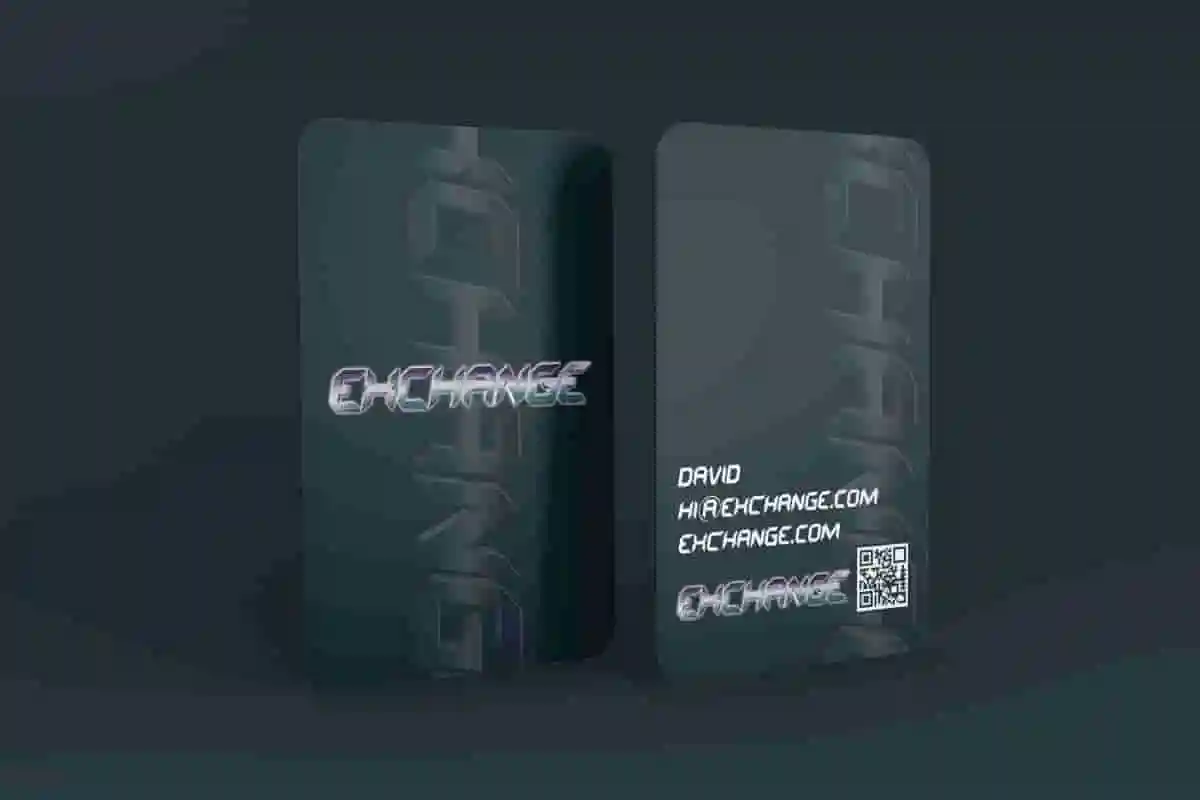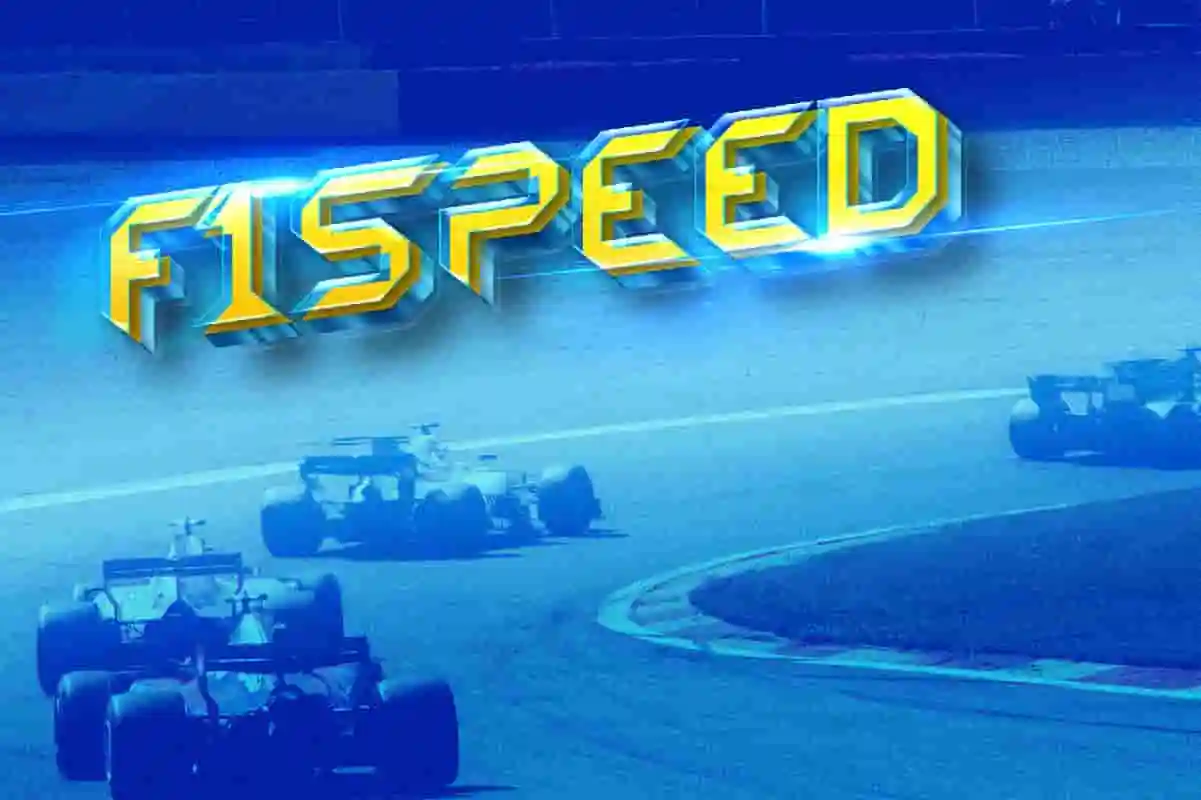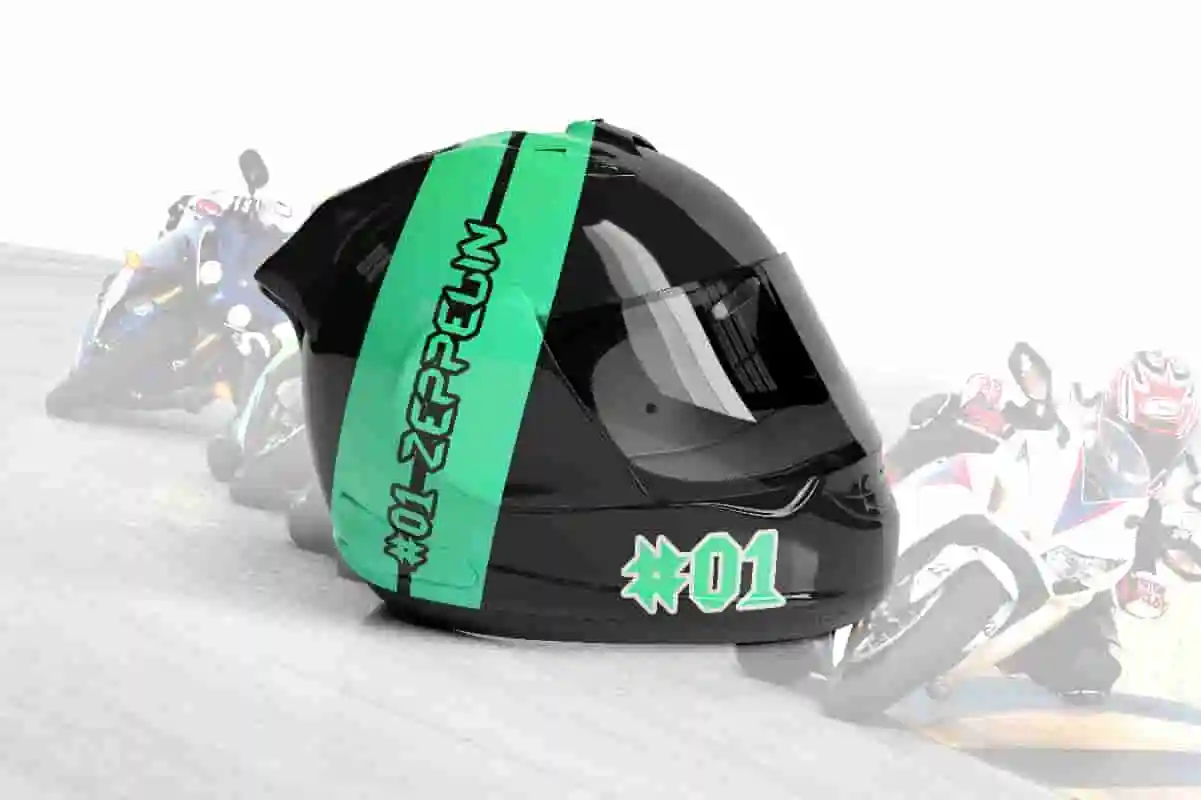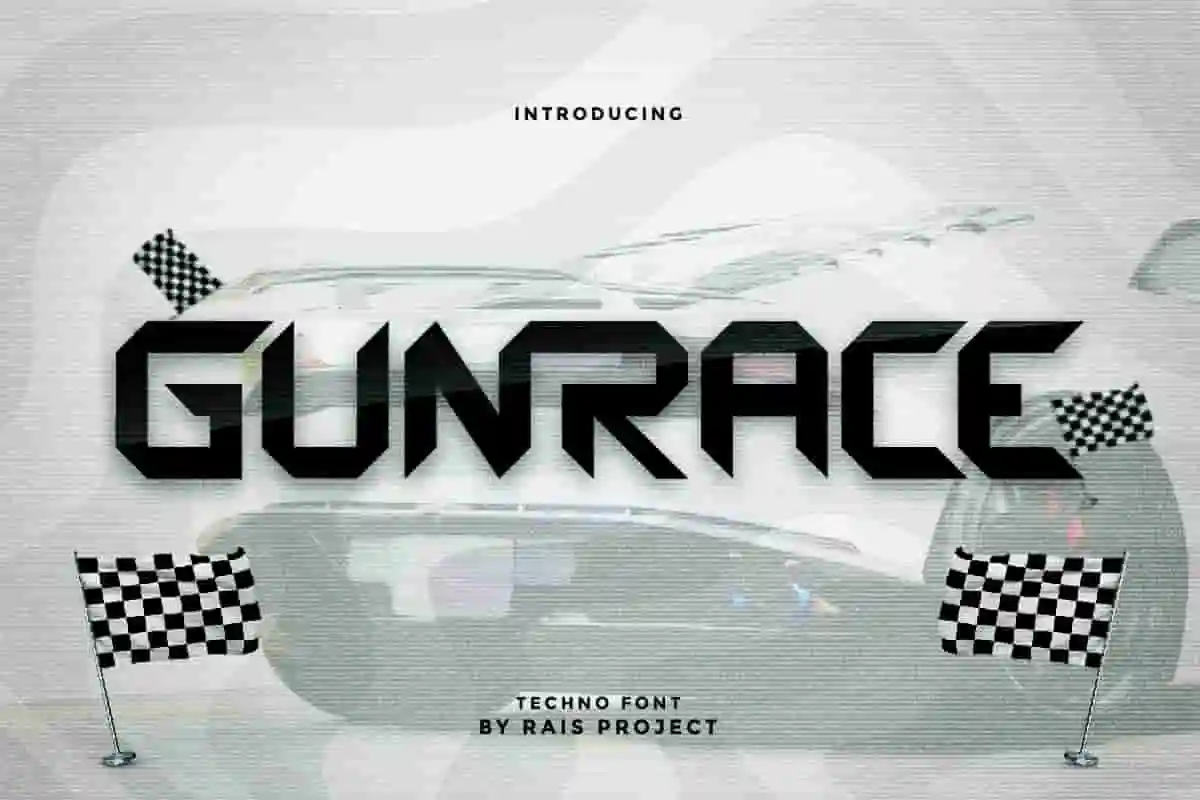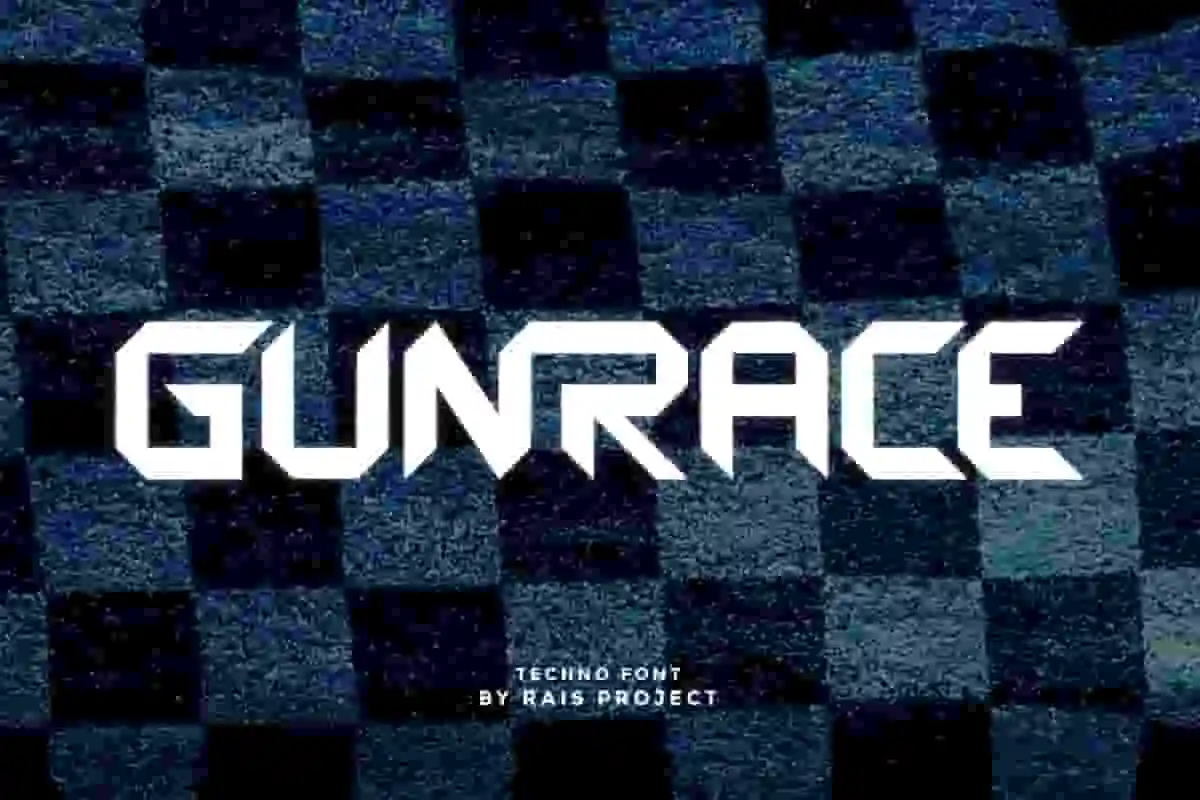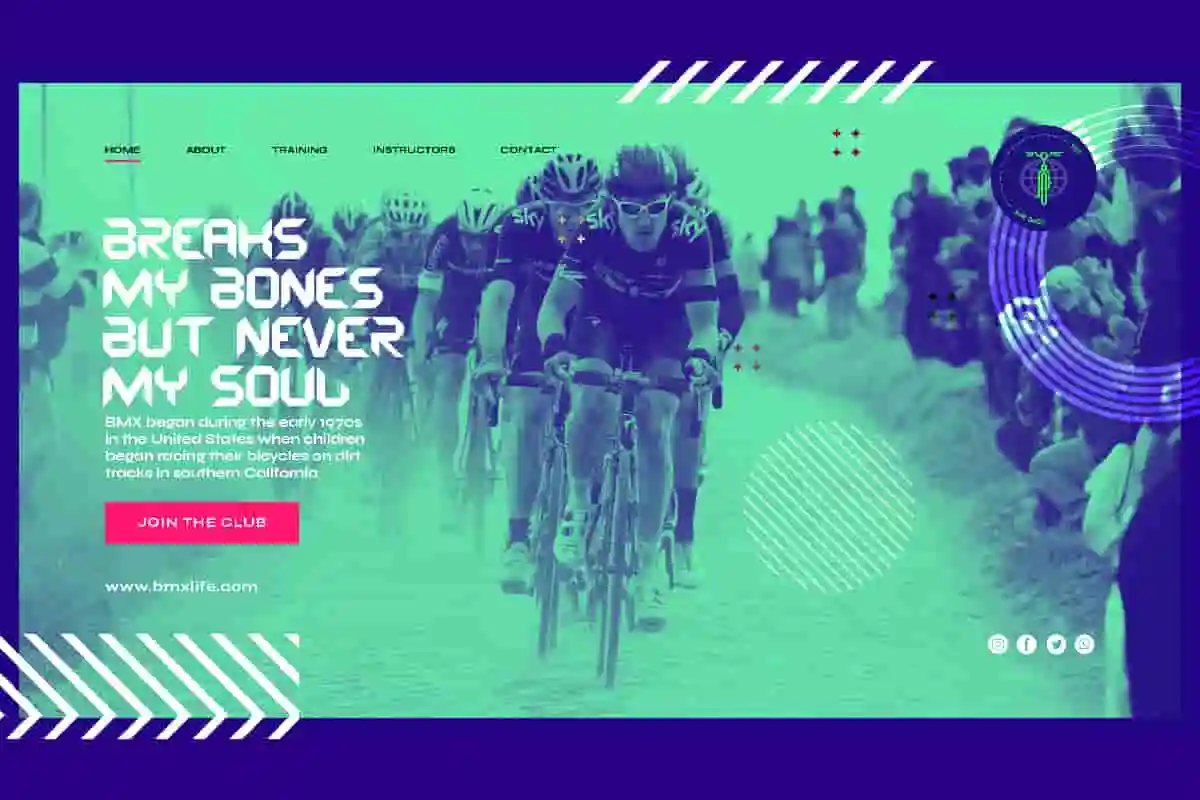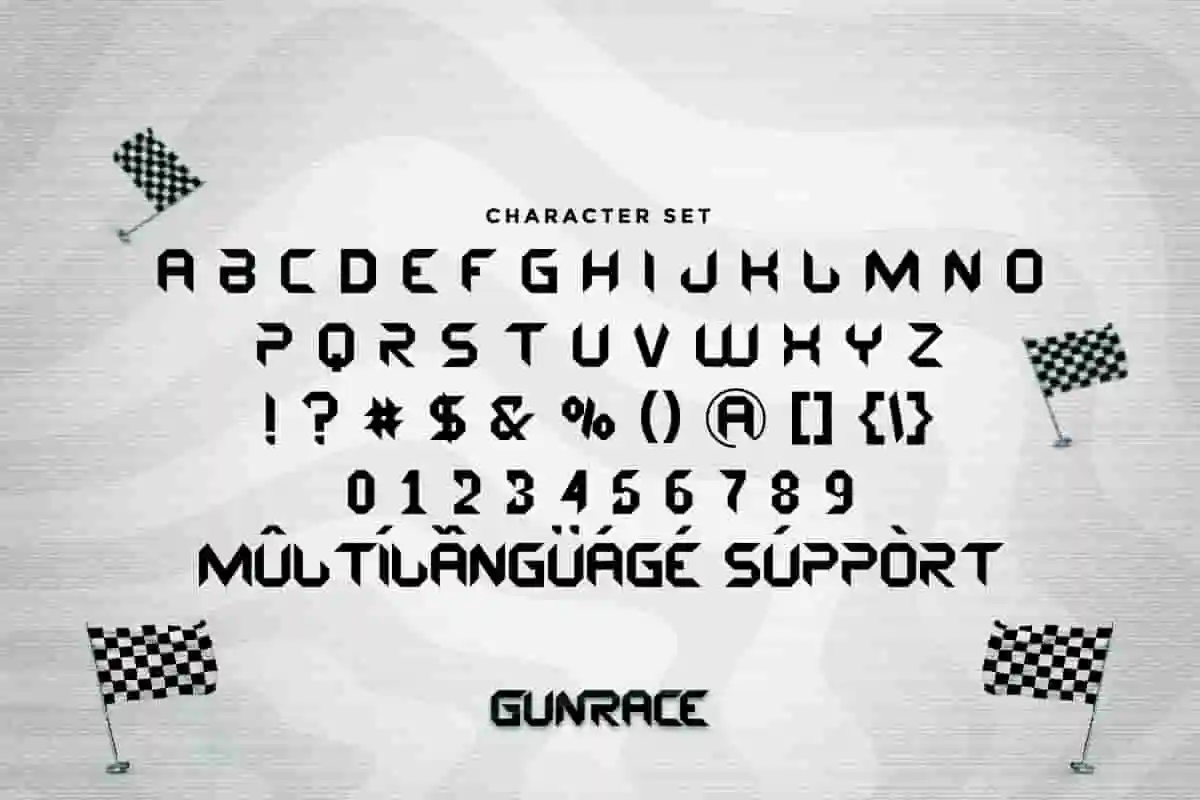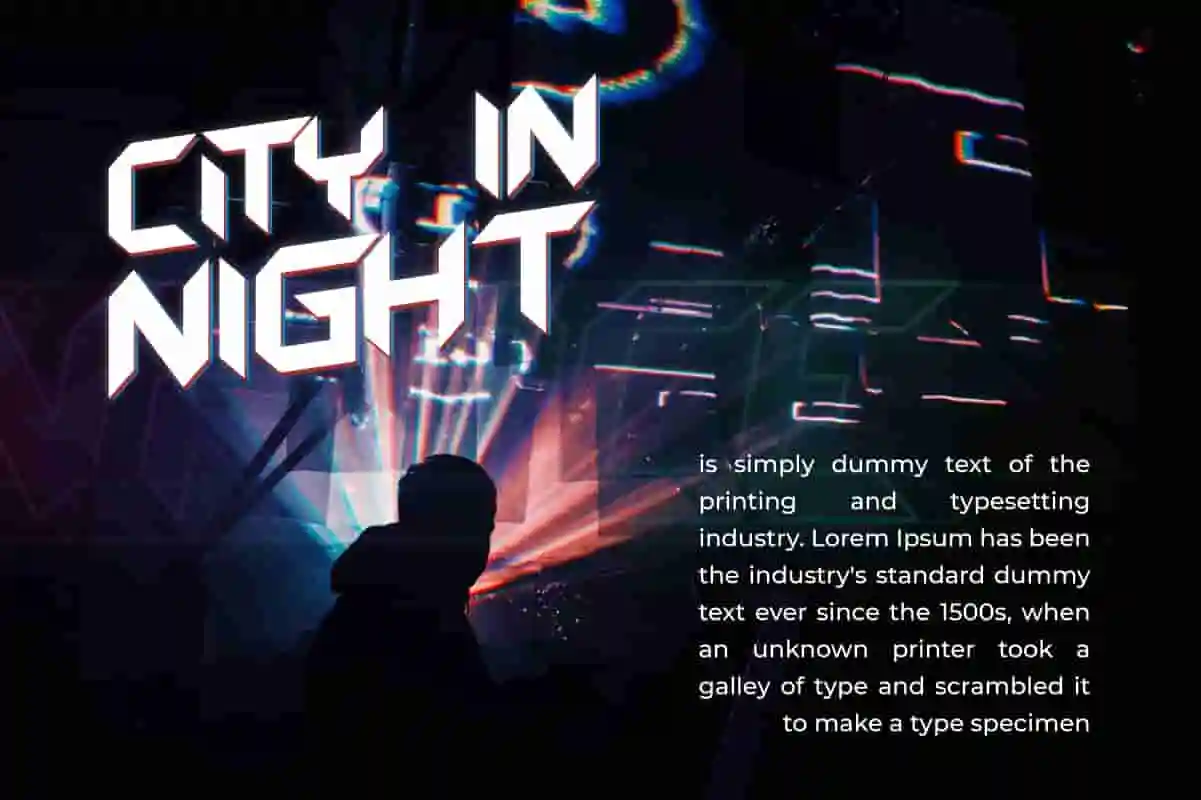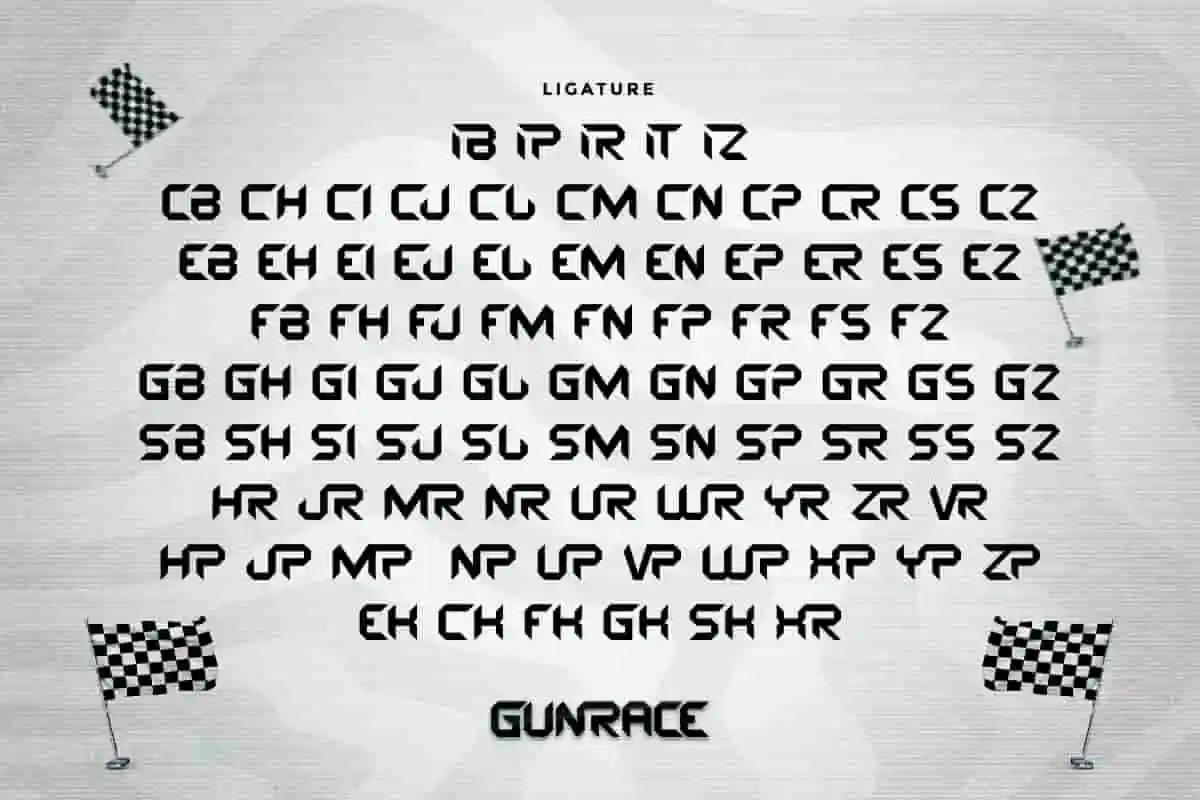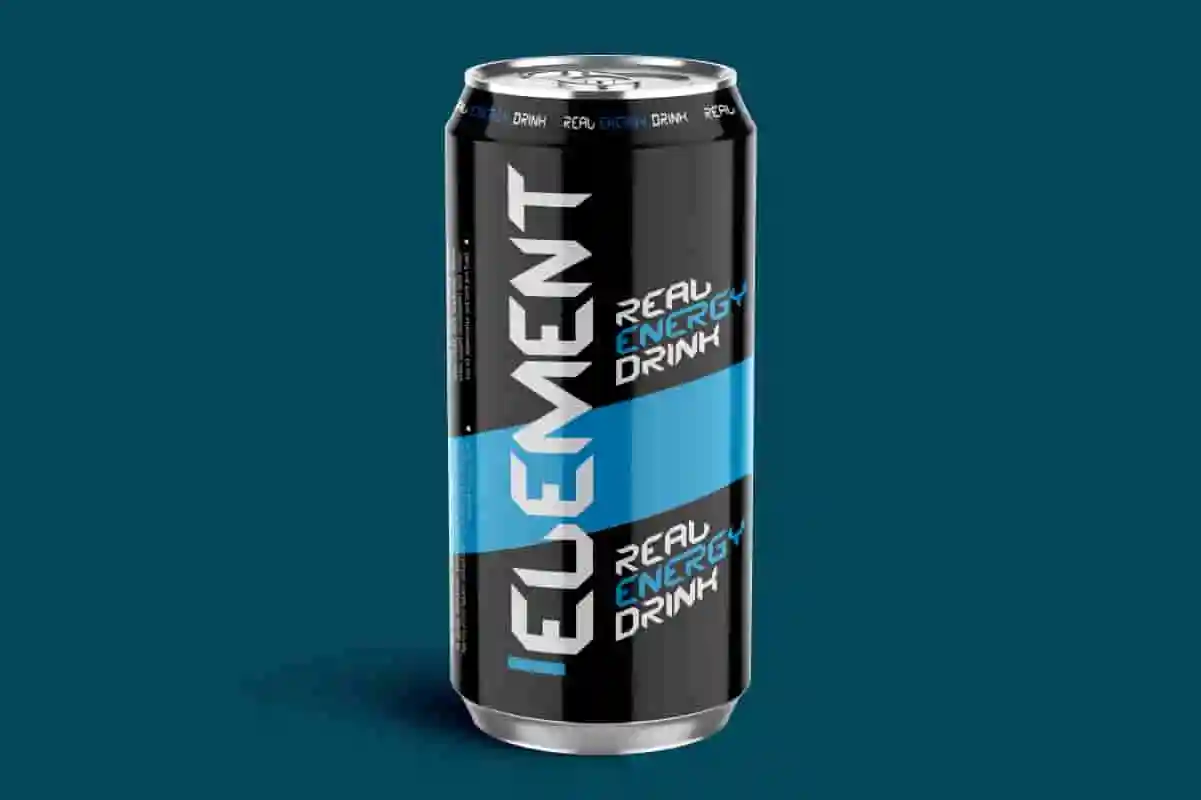
Gunrace Font
Gunrace Font is a display font inspired from racing championship team. The font will be great for Movie, Game, Magazine, Music, Video, Sports, products etc
Gunrace Font is a display font with racing speed style. The font inspired from racing championship, exclusively designed by RaisProject. You can see the demo font below. You can also input any word you want so you can see what it will look like :
Gunrace Font was handcrafted for any your special projects including : headlines, promotion, events, branding, advertising, magazine, signage, invitation, stationery, social media posts, label and any projects that need racing style. The theme/industries of this font is Movie, Game, Magazine, Music, Video, Sports, Racing etc
It has full set of ALLCAPS uppercase letters, numerals, a large range of punctuation and ligatures to make it blended. On the package you will get: